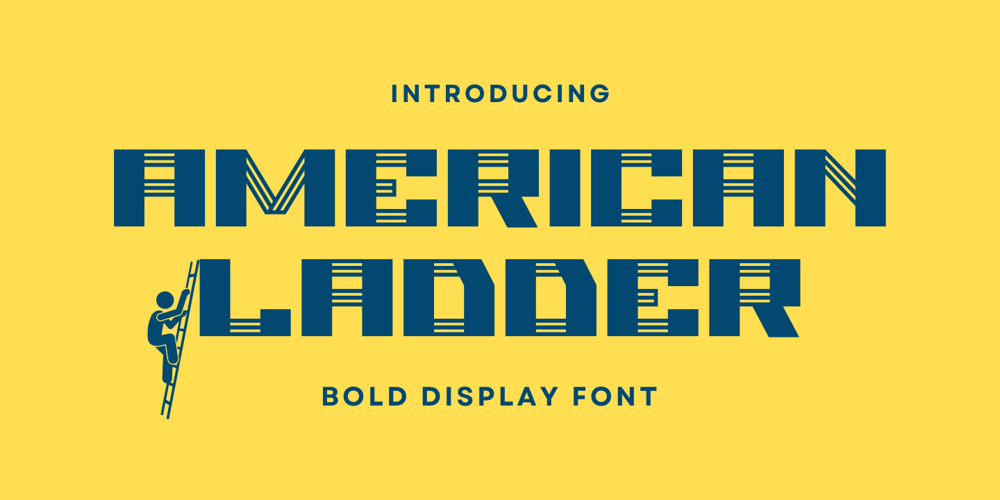
American Ladder Font Family was designed by Muhamad Yusron Billah and published by Sronstudio. American Ladder contains 2 styles and family package options. Introducing “American Ladder,” a bold display font designed to make a strong statement. With its robust and striking letterforms, this font is perfect for grabbing attention and conveying confidence in your designs. Ideal for headlines, posters, logos, and branding materials, “American Ladder” ensures your message stands out with authority and impact. Elevate your projects with the powerful presence of “American Ladder,” and let your designs climb to new heights.Included:- 2 Style : Regular & Italic- Numeral & Punctuation- PUA Encoded- Multilingual support- Simple Installation- Work both on Mac and WindowsThank you very much 🙂